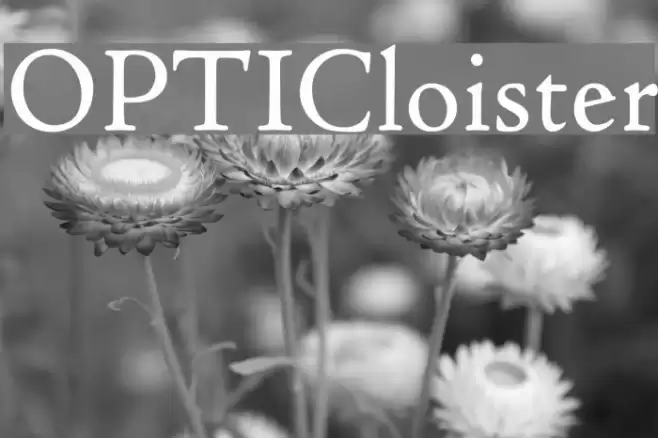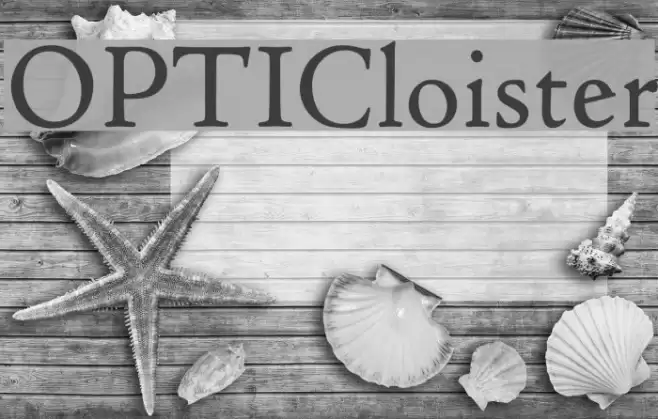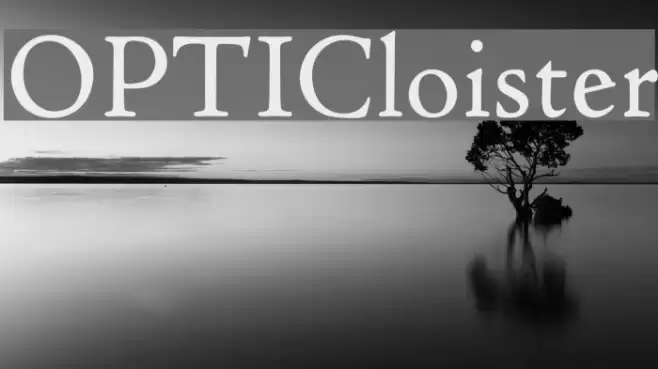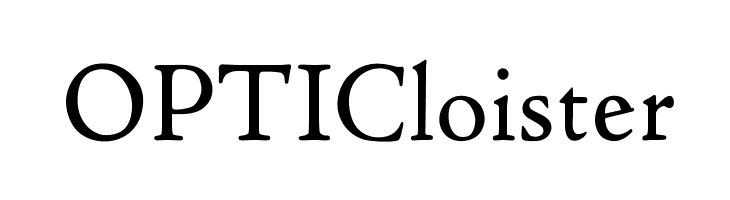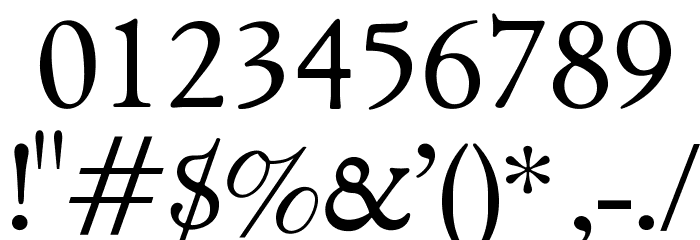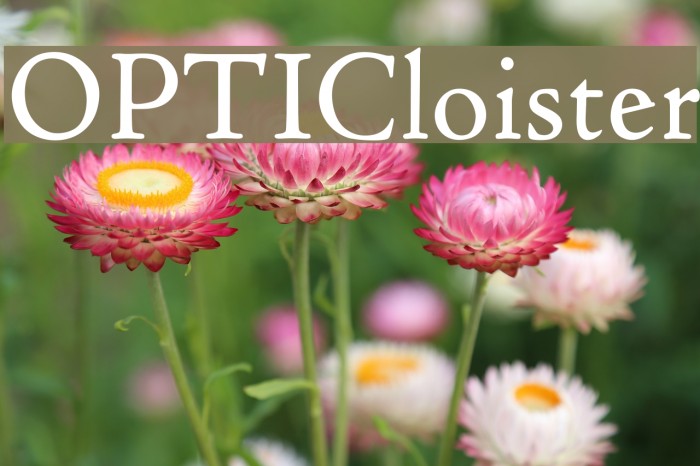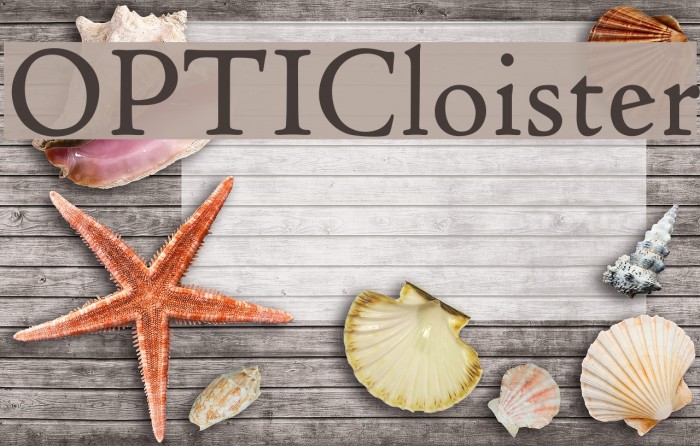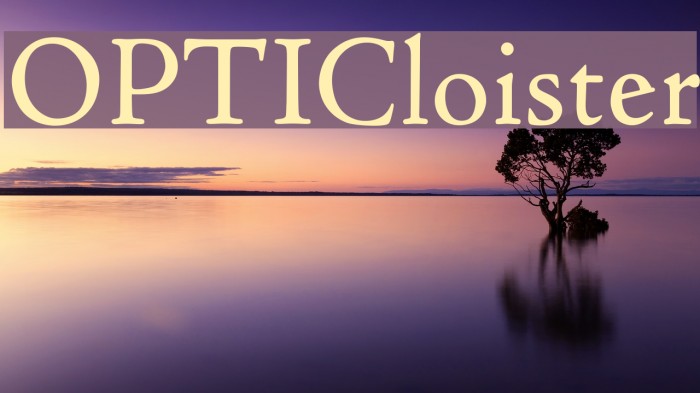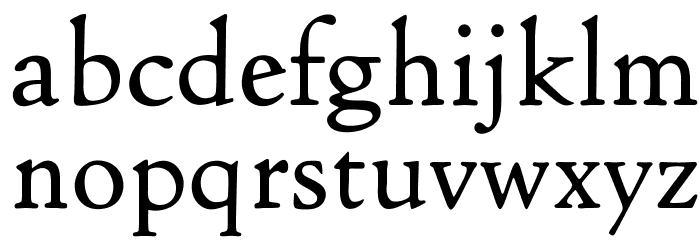
OPTICloister
This font exhibits a classic serif style with a strong, traditional appearance. The characters feature elegant, sharp serifs that add a touch of sophistication and formality. The uppercase letters are bold and commanding, while the lowercase letters maintain a consistent flow with slightly rounded edges, providing a harmonious balance. The numerals are clear and distinct, making them easily readable. Special characters are well-integrated, maintaining the overall aesthetic of the font. This typeface is ideal for projects that require a timeless and authoritative look.
A classic serif font with elegant, sharp serifs and a traditional appearance.
- Proposed Projects: Ideal for book covers, formal invitations, certificates, and editorial design.
- Category: Serif
- Overall Style: Classic
- Use Case: Headlines, Body text, Editorial design